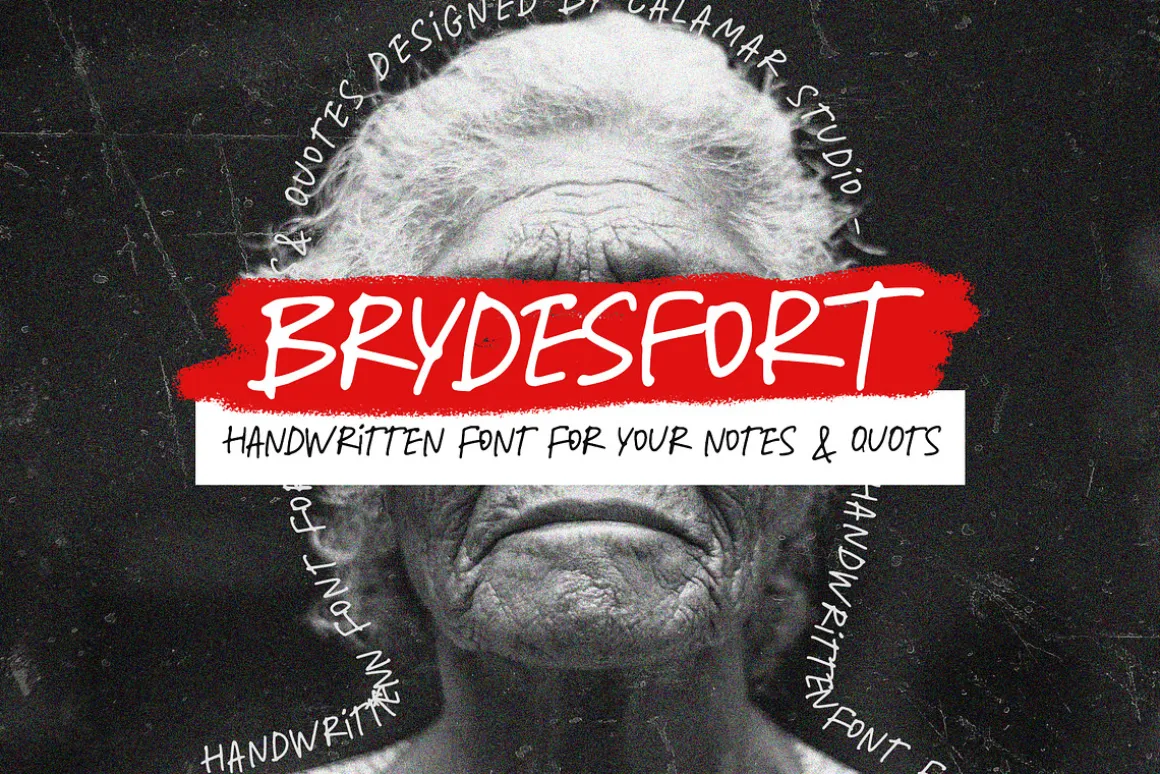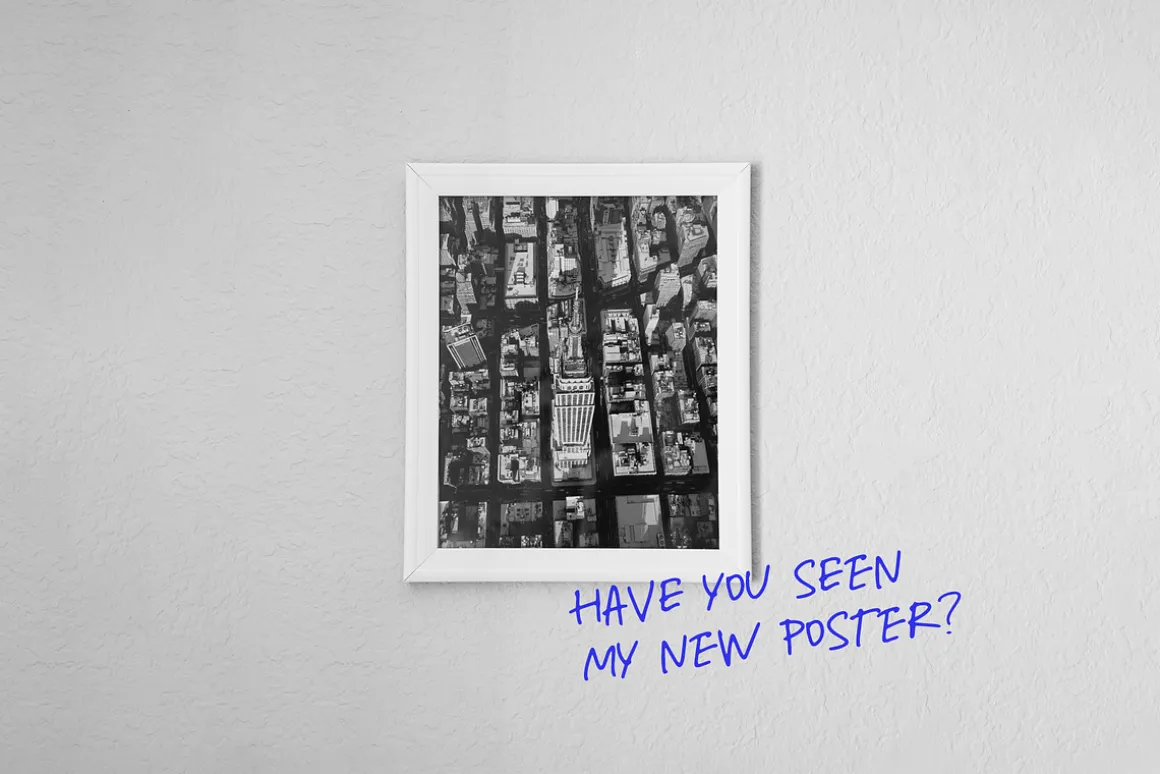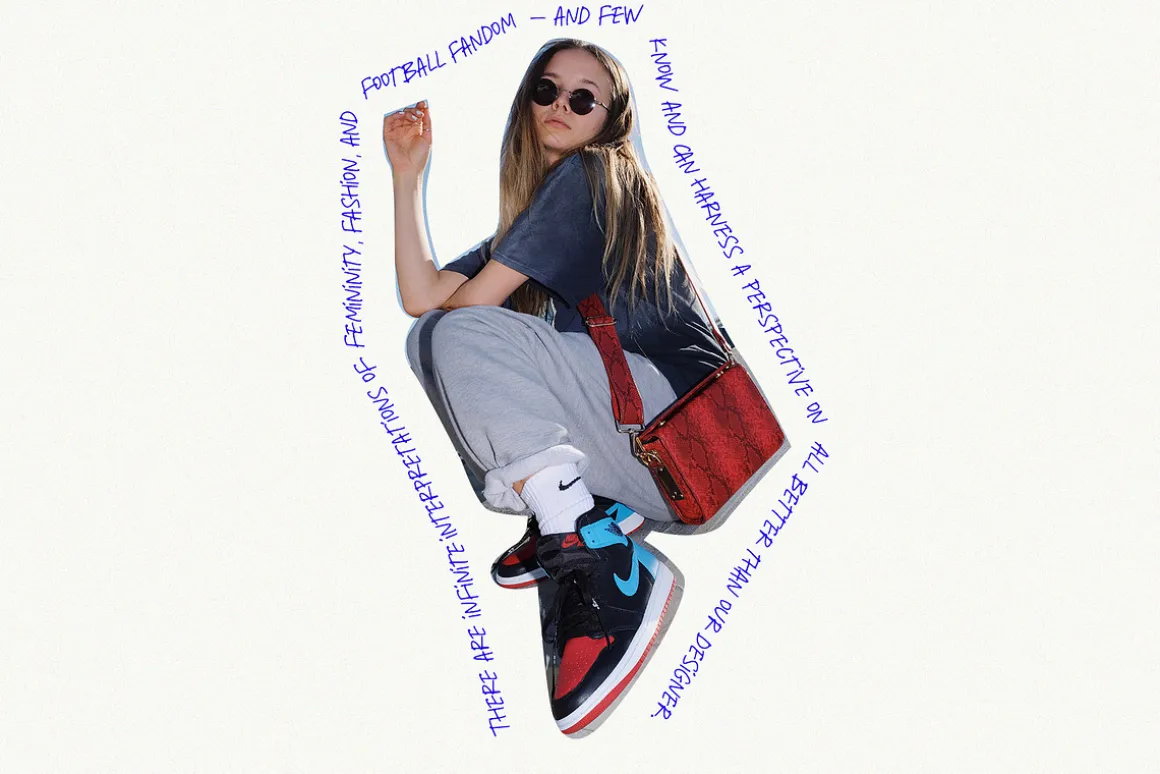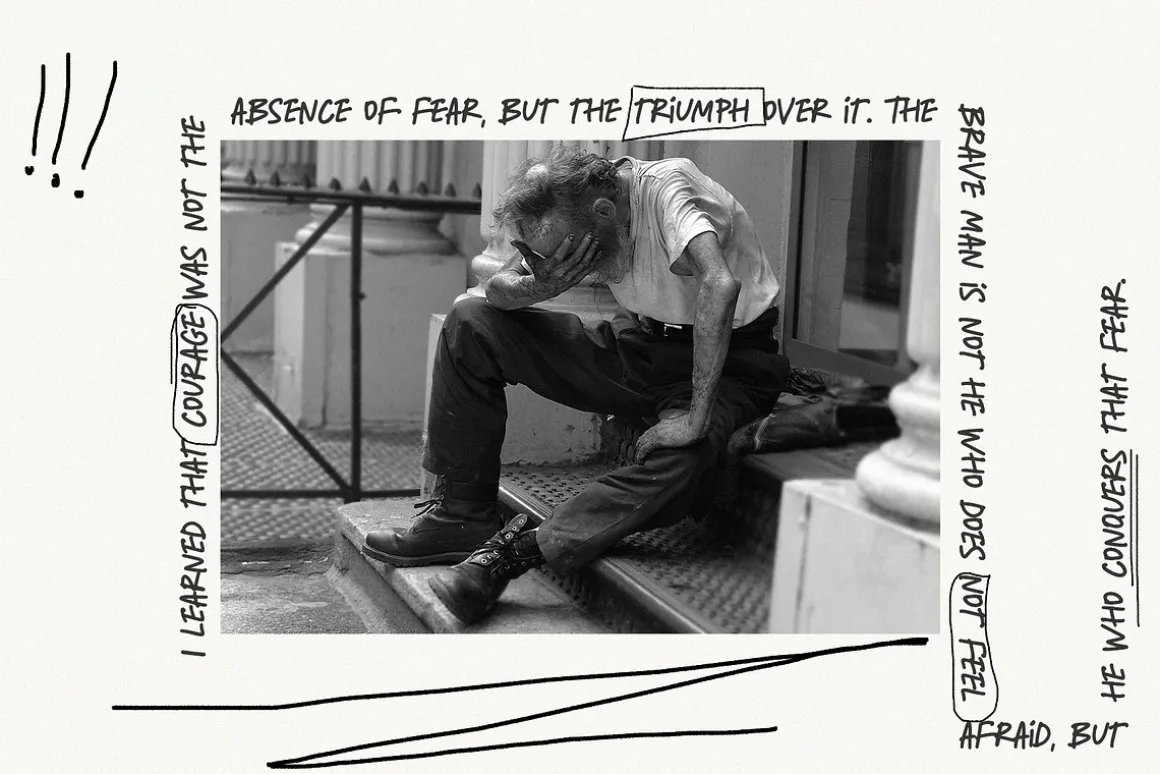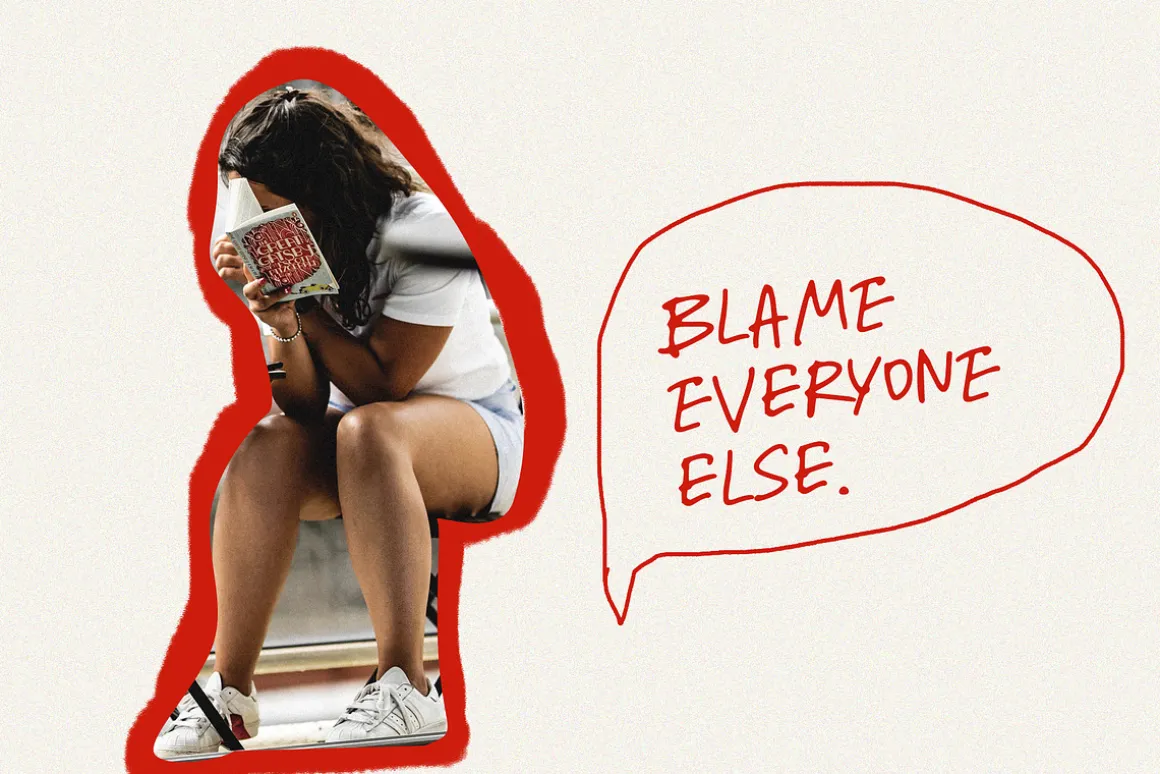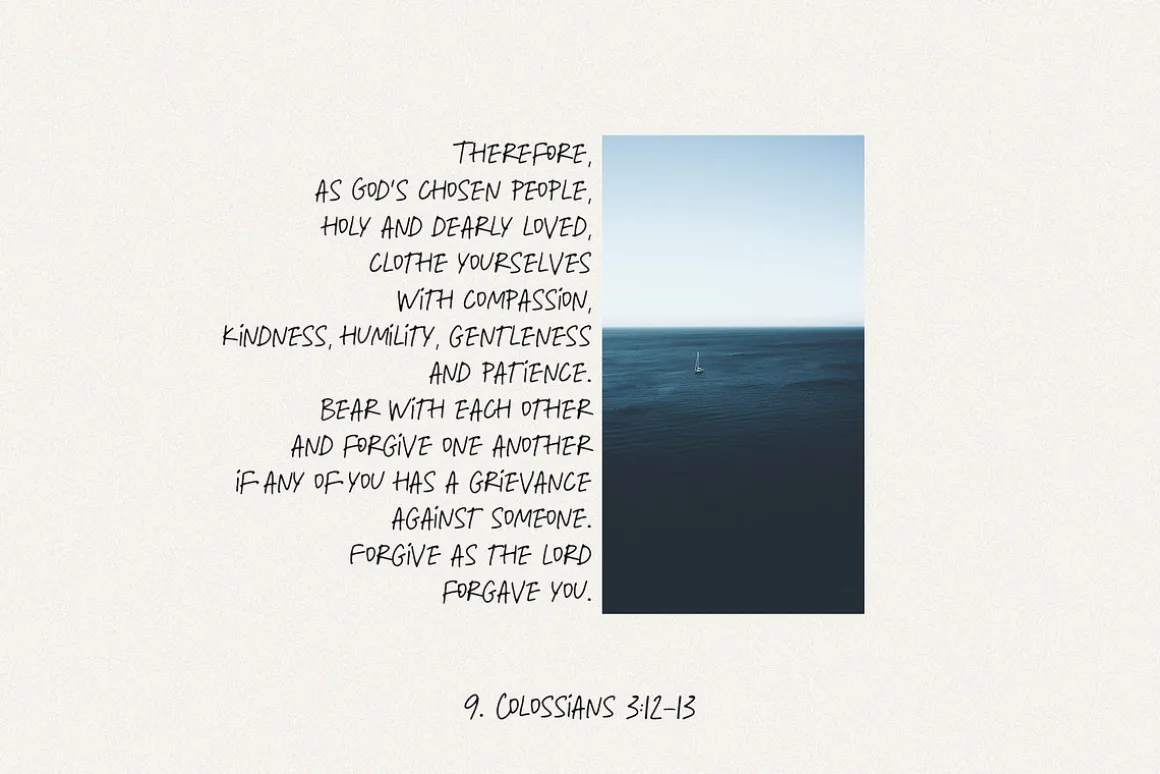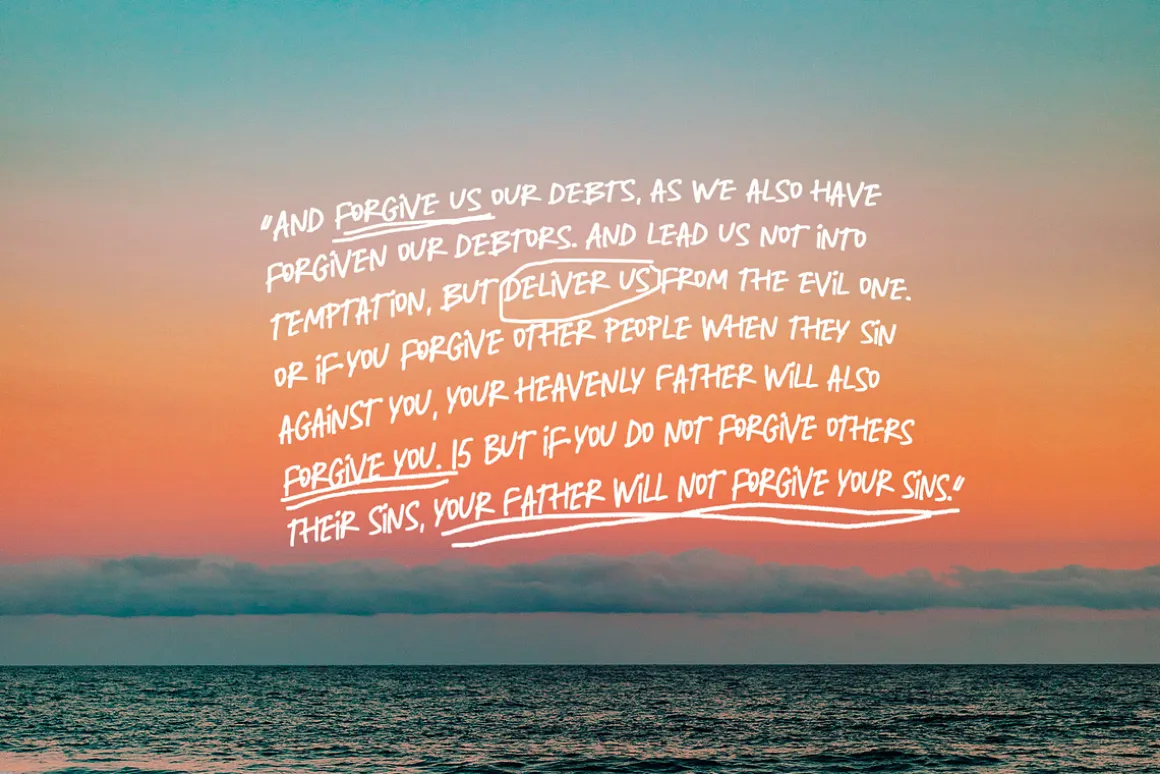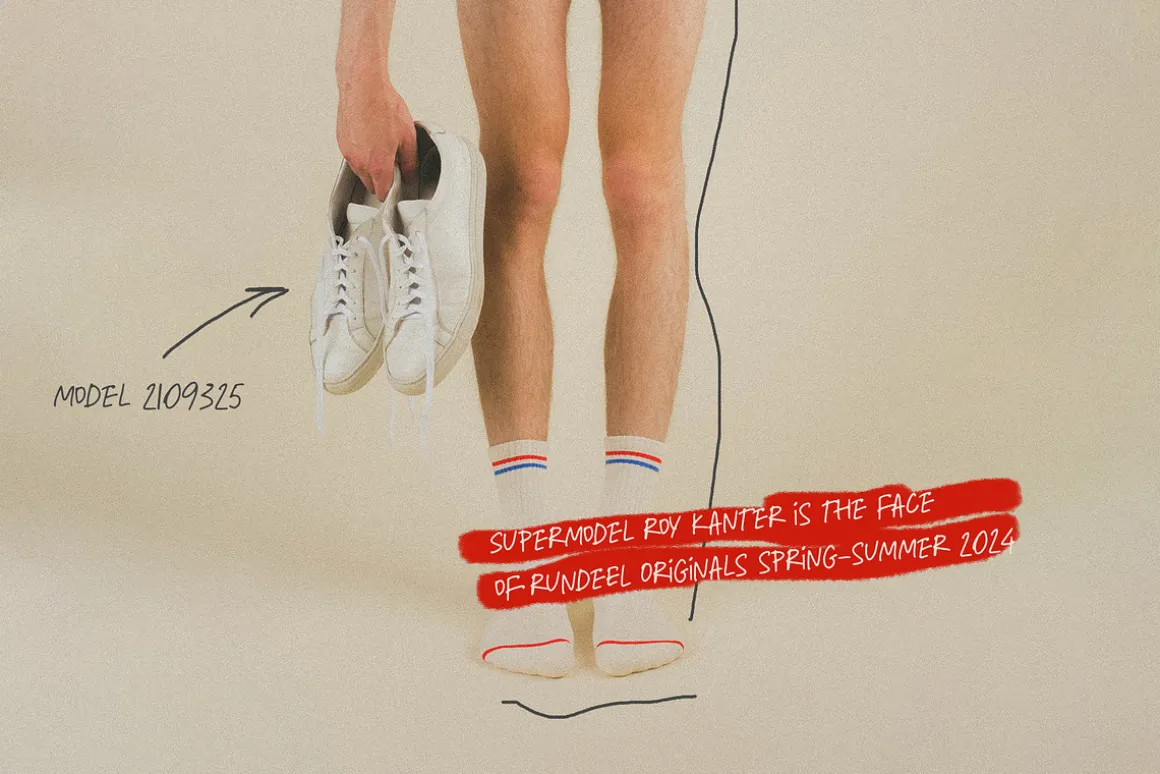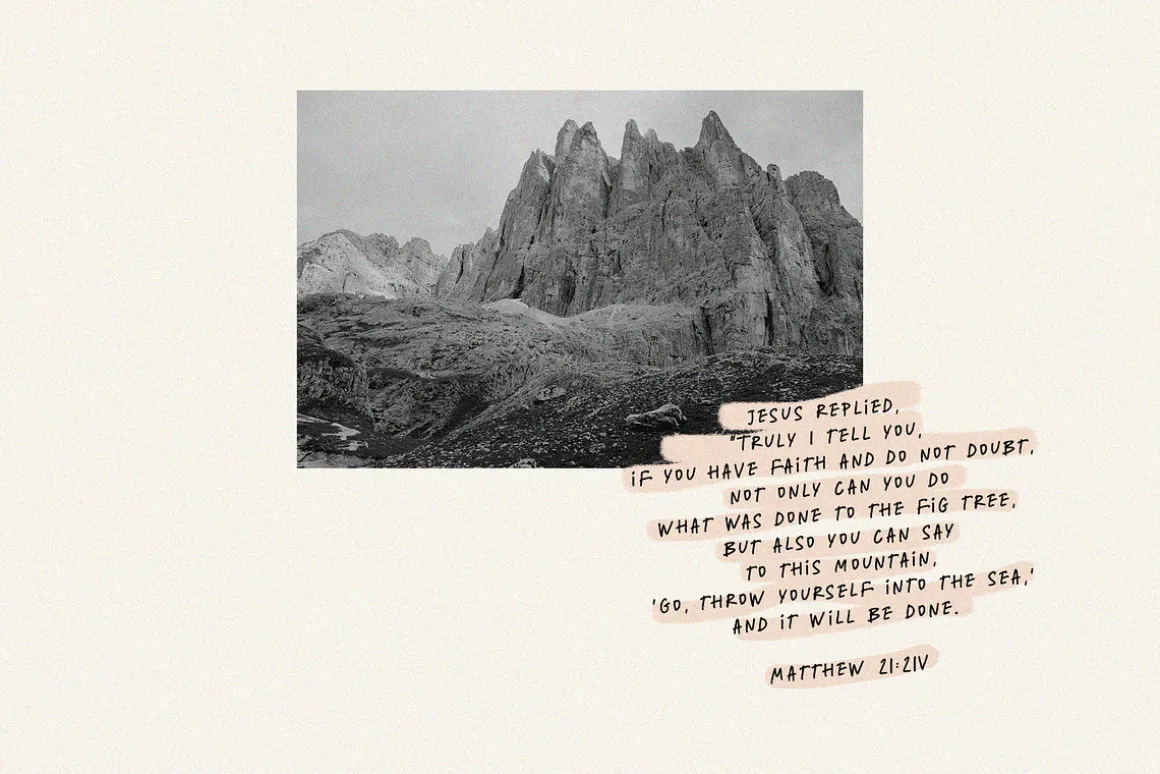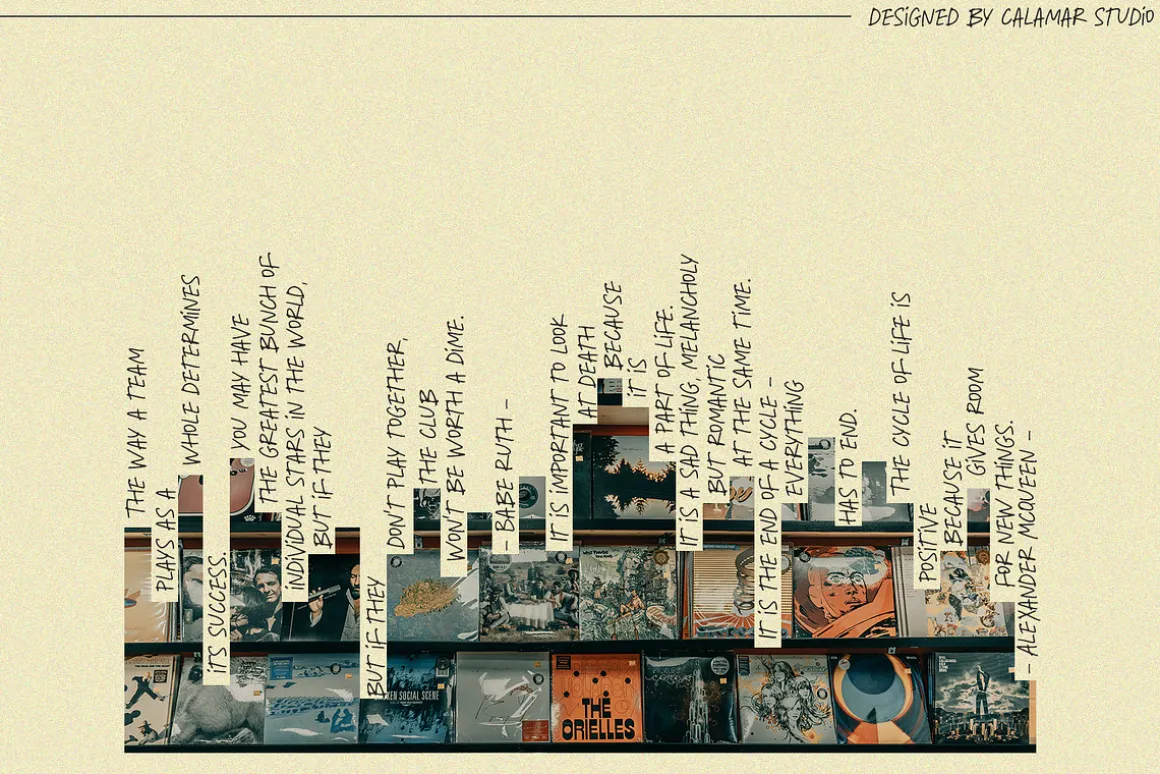
Brydesfort is a handwriting font designed for projects with a hand drawn and organic vibe. It’s imperfect, messy and maybe childish but it’s perfect for notes, product packaging, movie posters, art posters, quotes, logo designs, etc. This font is a must have if you love handwritten fonts.